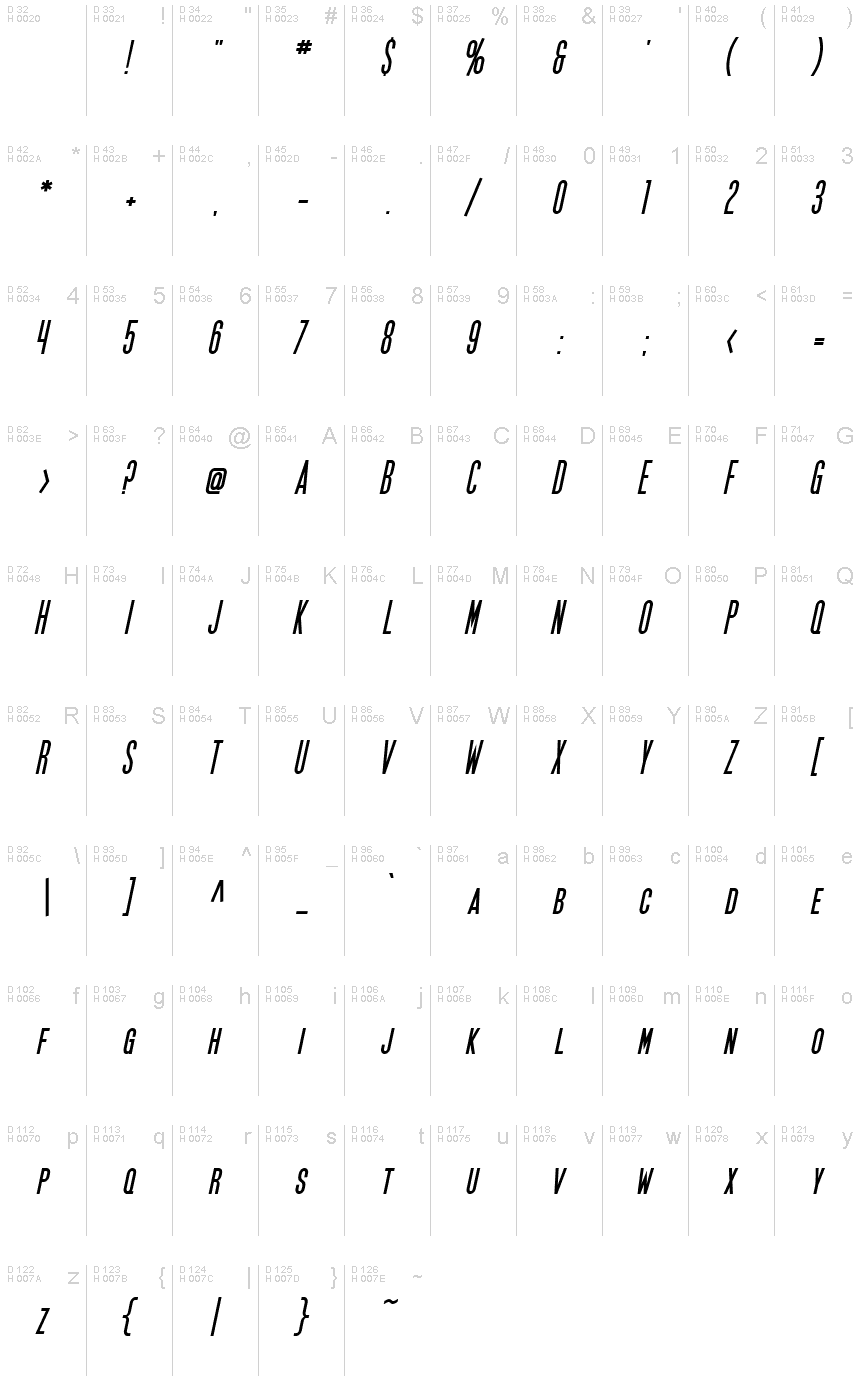
SF Movie Poster Bold Oblique
SF Movie Poster Bold Oblique, from the SF Movie Poster font family designed by ShyFonts Type Foundry, embodies a sleek sans serif style with a semi-light weight and an extra-condensed width that is tailor-made for capturing attention. Its slanted orientation imparts a dynamic sense of action, making it an ideal choice for titles that demand urgency and impact.
The font's clean lines and unembellished form offer a modern aesthetic that is versatile enough to complement various creative projects, from cinematic promotions to contemporary advertising campaigns. With its bold oblique stance, SF Movie Poster Bold Oblique stands out as a distinctive typeface that can elevate design work with sophistication and a clear nod to the glamour of the silver screen.